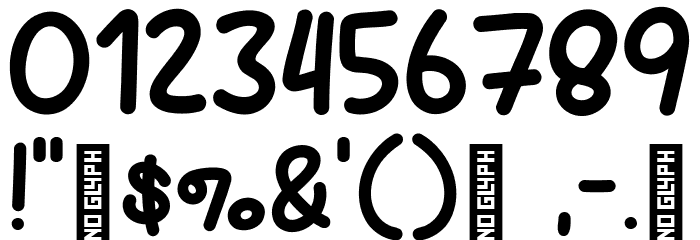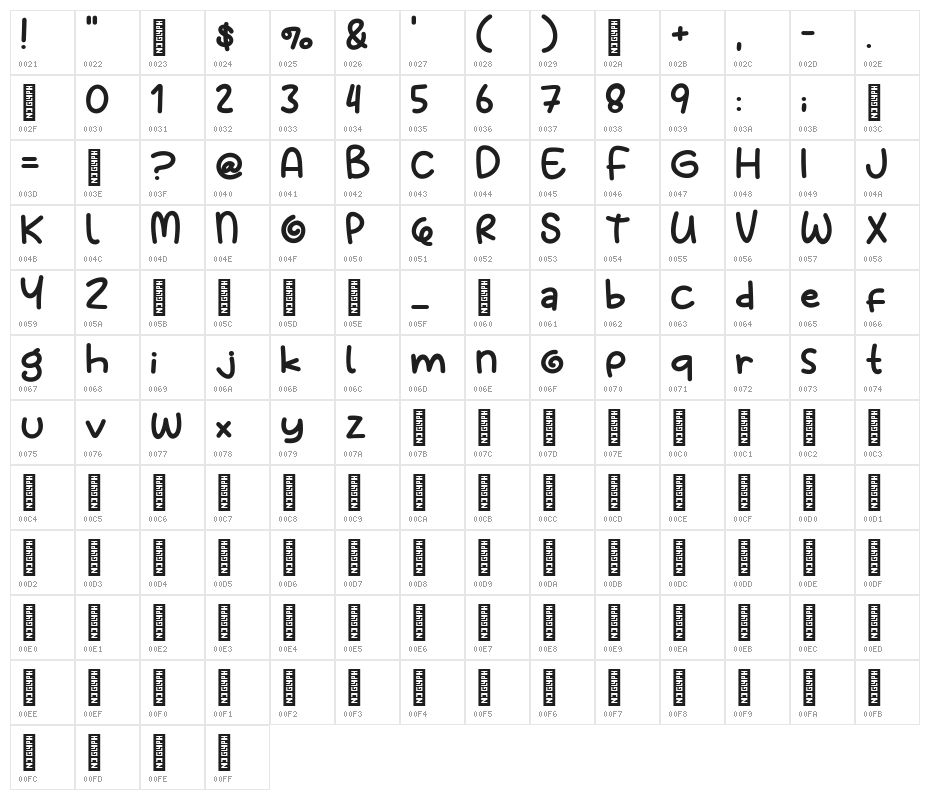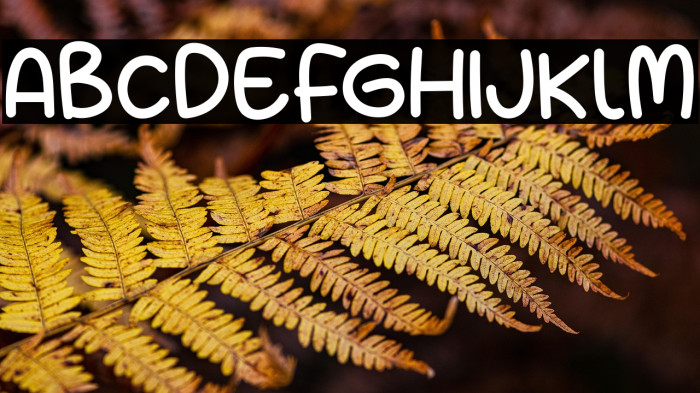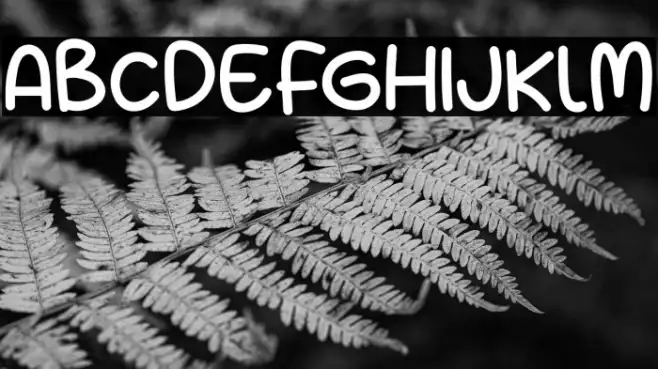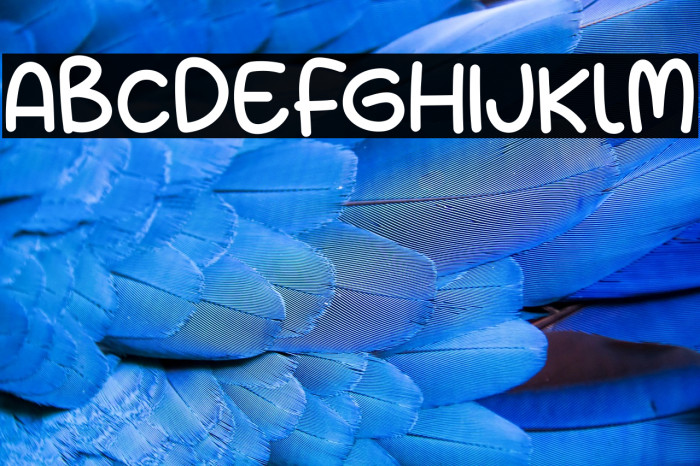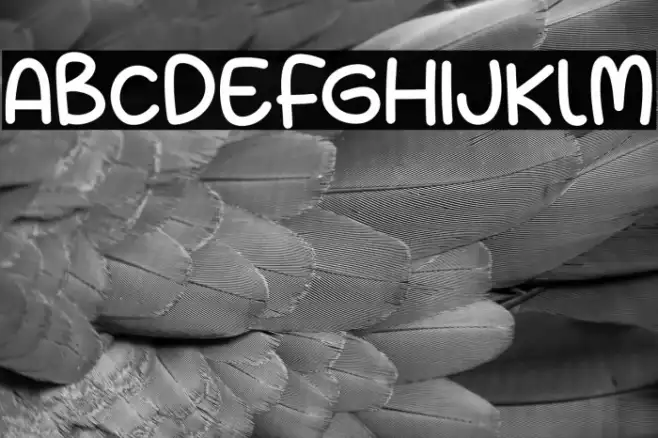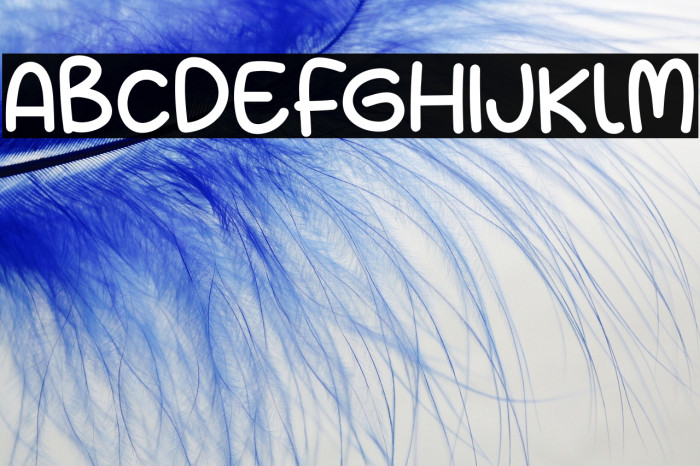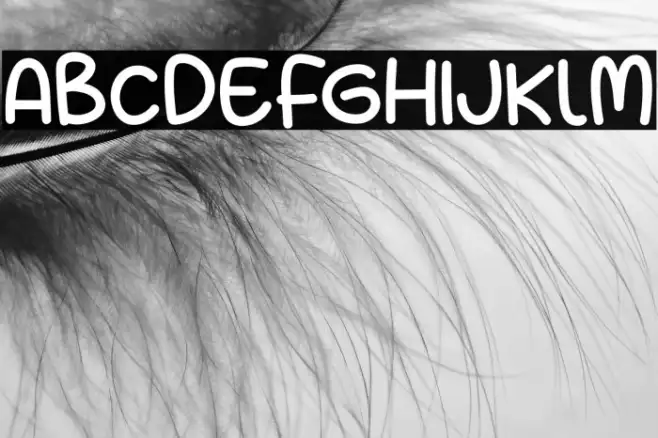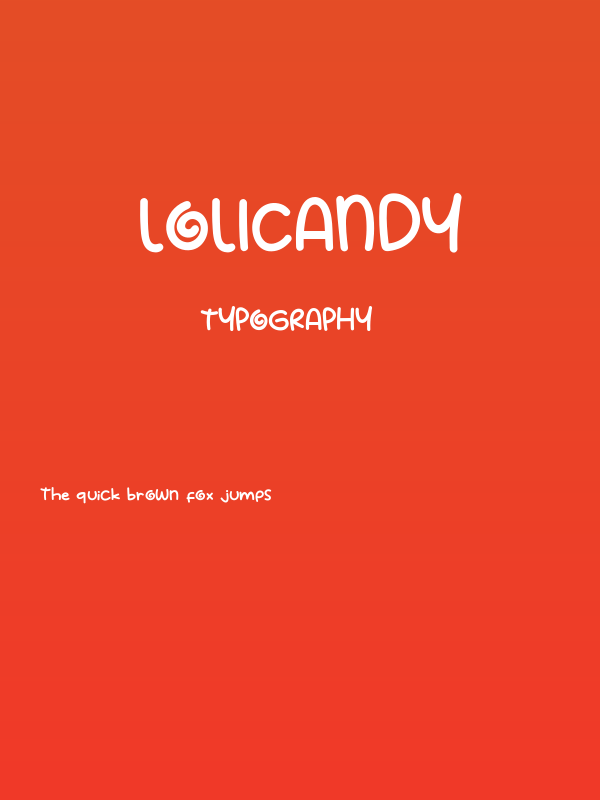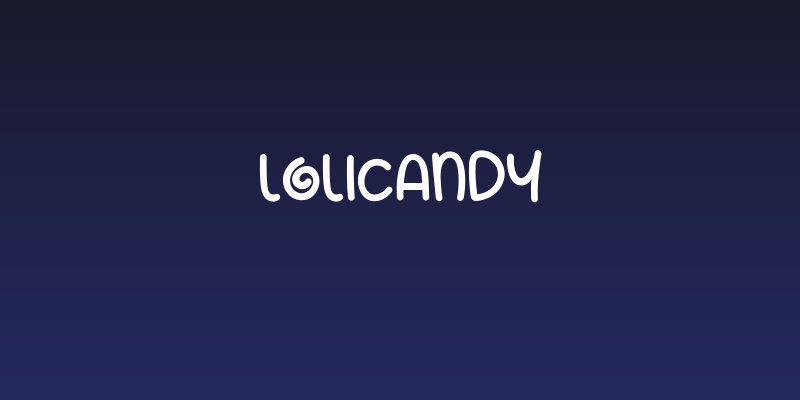
Lolicandy Font
Lolicandy Description
This playful and whimsical font features rounded, smooth edges and a hand-drawn appearance, giving it a friendly and approachable feel. The characters are slightly irregular, adding to its charm and uniqueness. The font maintains a consistent stroke width, which contributes to its casual and informal style. It includes a full set of uppercase and lowercase letters, numbers, and a variety of special characters, making it versatile for different uses. The overall design is reminiscent of handwriting, making it suitable for projects that require a personal touch.
Overall StyleCasual
Use CaseLogos, Invitations, Greeting Cards
Proposed ProjectsIdeal for children's books, playful branding, greeting cards, and casual invitations.